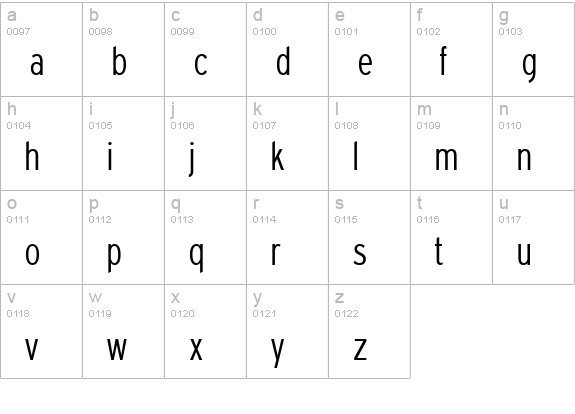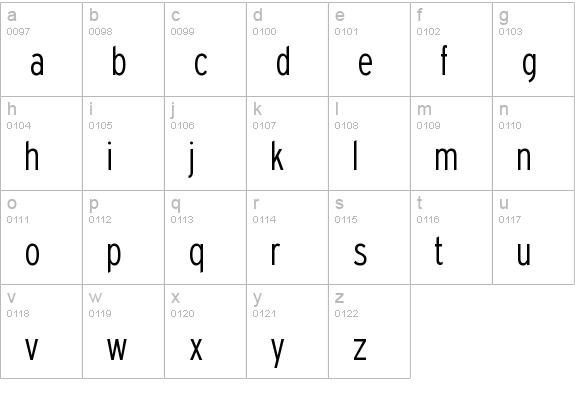
Expressway Cd Lt Font Details
Expressway Cd Lt is a modern and sleek font that exudes a sense of sophistication and elegance. Its clean lines and sharp angles make it perfect for a variety of design projects, from branding to editorial layouts. The font's bold yet refined appearance commands attention and leaves a lasting impression on the viewer. What makes Expressway Cd Lt even more appealing is the fact that it is available for free download at FontsMarket.com. This means that designers and creatives can easily access this high-quality font without any cost, making it a valuable addition to their font library. With its versatility and striking design, Expressway Cd Lt is sure to elevate any project and help you stand out from the crowd.